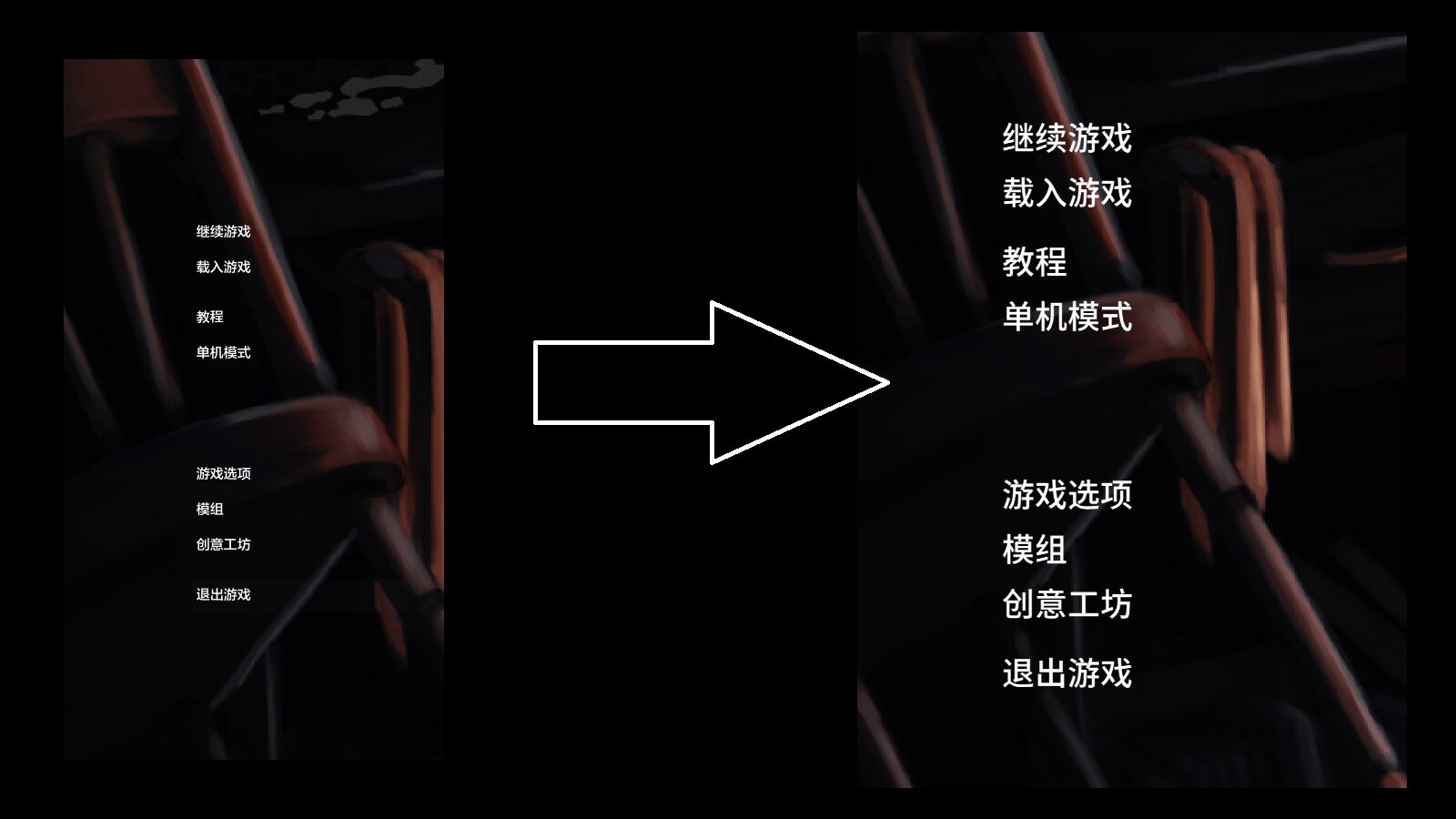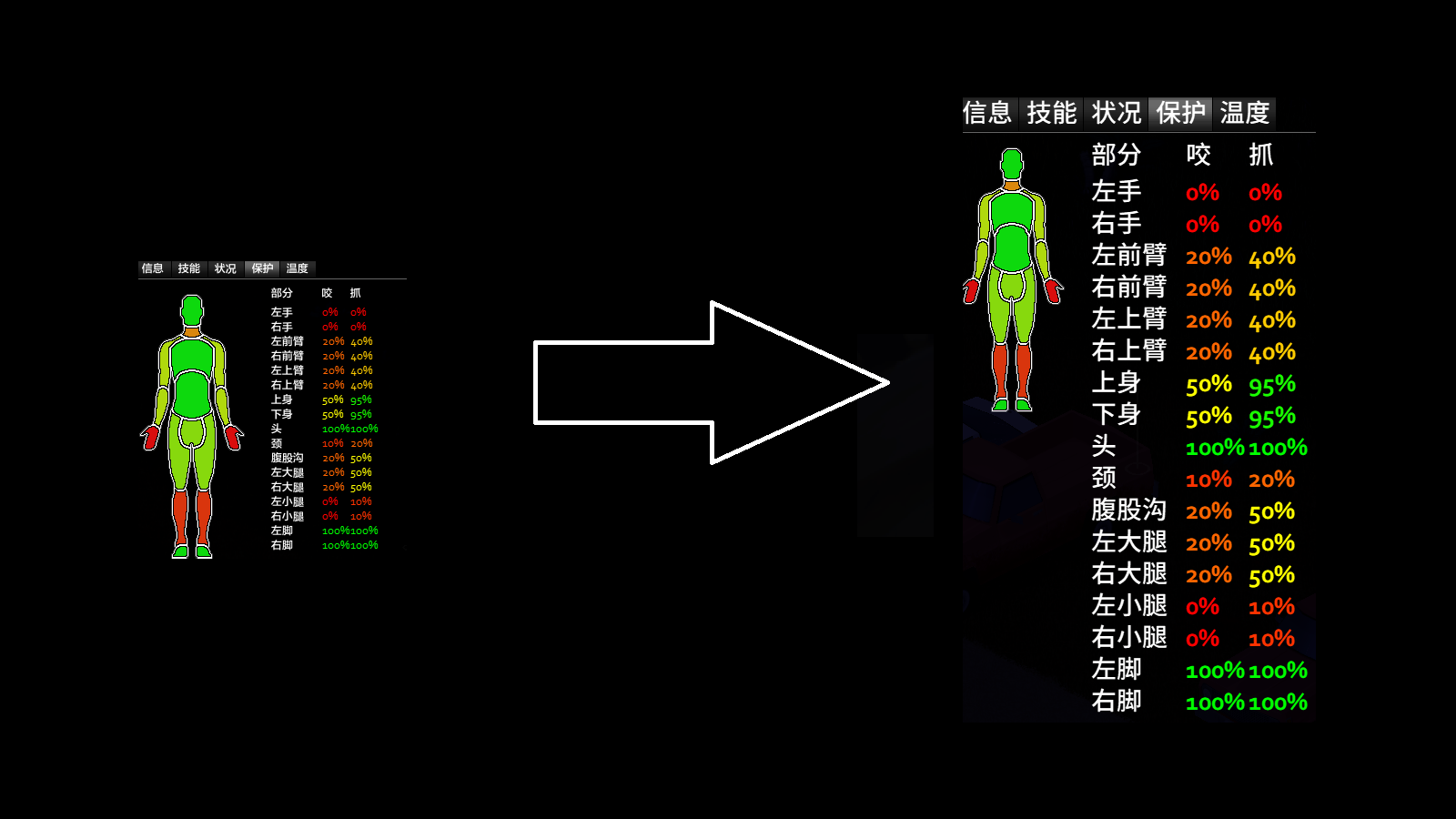
Simplified Chinese fonts
Project Zomboid: Enhanced Readability with Simplified Chinese Fonts
For players of Project Zomboid who prefer or require Simplified Chinese text, this mod offers a significant improvement in the game’s visual presentation. Navigating the intricate world and detailed information within Project Zomboid becomes much smoother when the in-game text is rendered clearly and legibly. This modification focuses on replacing the default fonts with versions specifically optimized for Simplified Chinese characters, ensuring a more immersive and accessible gameplay experience.
Improving the User Interface
The user interface in Project Zomboid is packed with crucial information, from inventory management and crafting recipes to survivor needs and environmental details. When these elements are displayed using fonts that do not adequately support the nuances of Simplified Chinese, players can face readability challenges. This can lead to frustration and a less enjoyable time surviving the zombie apocalypse. This font mod directly addresses these issues by providing a cleaner, sharper, and more consistent rendering of all in-game text.
Key Features of the Simplified Chinese Fonts Mod:
- Optimized Character Display: Ensures that all Simplified Chinese characters are rendered with precision and clarity.
- Enhanced Readability: Significantly improves the ease with which players can read in-game text, menus, and item descriptions.
- Immersive Experience: Contributes to a more cohesive and accessible gameplay experience for Simplified Chinese speakers.
- Seamless Integration: Designed to integrate smoothly with the existing Project Zomboid interface without causing compatibility issues.
A More Accessible Apocalypse
Whether you are meticulously planning your next scavenging run, managing your base, or engaging with the complex systems of Project Zomboid, clear text is paramount. This mod ensures that the visual presentation of the game aligns with the expectations of players who use Simplified Chinese. By focusing solely on font improvements, the mod provides a targeted and effective solution for those seeking a more comfortable and visually pleasing way to experience the world of Project Zomboid.